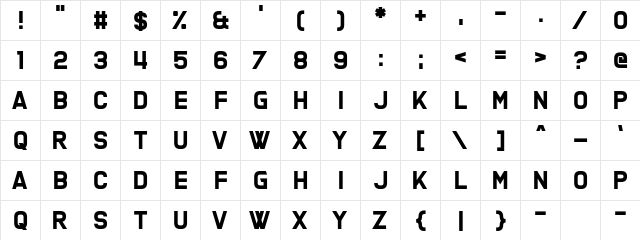
Fresh Eaters Regular
| Designer | Allison James |
Design Context for Fresh Eaters Typeface
Fresh Eaters offers clean, dependable letterforms without strong stylistic allegiance, making it a practical choice for designers who need flexibility.